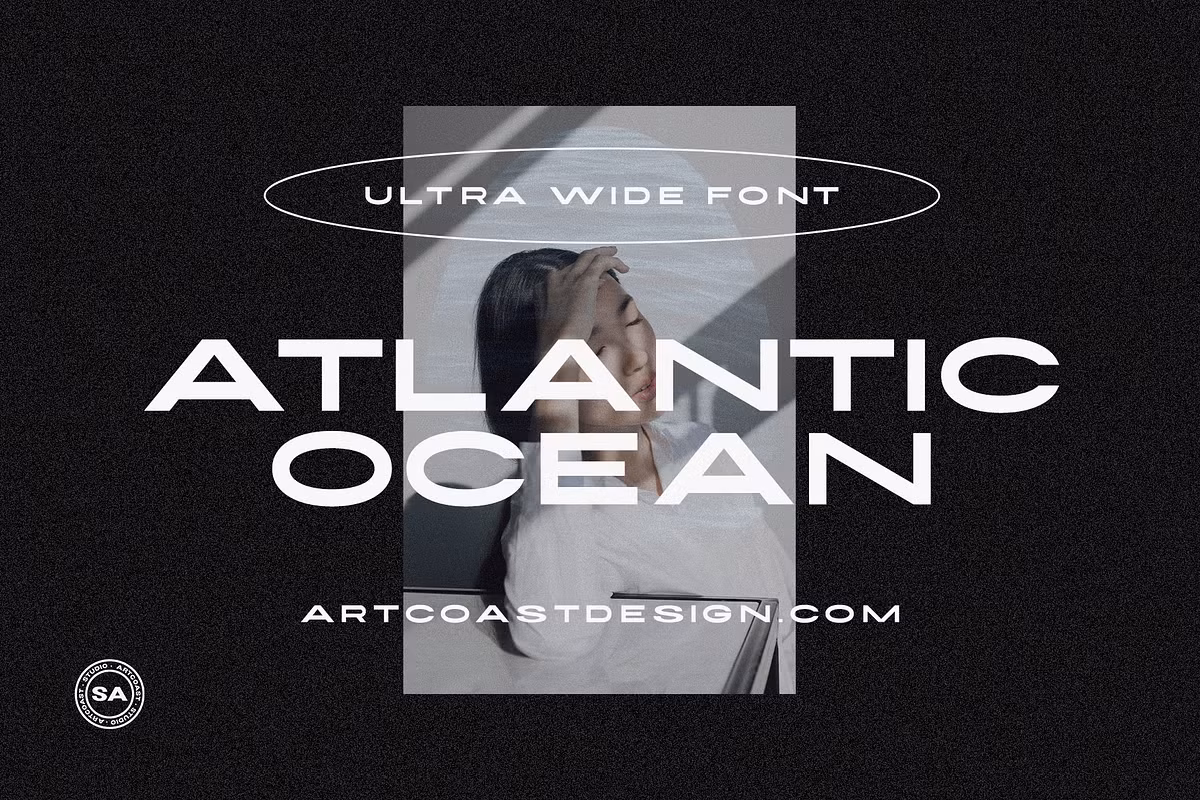
Atlantic Ocean | Ultra Wide Font Free Download
The Atlantic Ocean | Ultra Wide Font Free Download is a bold and unique typeface that features ultra-wide letterforms with a modern, geometric design. Perfect for eye-catching headlines, branding, logos, posters, and creative digital or print projects, this font adds a dramatic, high-impact style to any design.
With its wide proportions and strong presence, Atlantic Ocean is ideal for designs that need to stand out and grab attention. It includes uppercase and lowercase letters, numbers, punctuation, and multilingual support, making it versatile for various design applications.